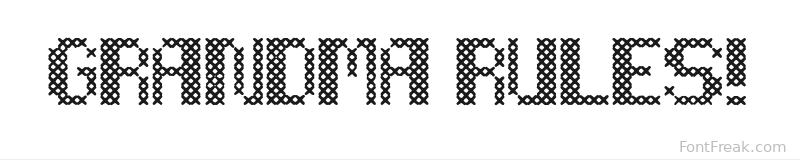
Grandma Rules!
Grandma Rules! is a playful display font designed by woodcutter Manero, categorized as a decorative typeface. This unique font features a distinctive visual style characterized by its intricate and whimsical design. The strokes are consistently medium in weight, creating a balanced yet engaging appearance. The spacing between the letters is well-considered, allowing for clear readability while maintaining the font's artistic flair. Decorative elements add a charming touch, making each character feel inviting and friendly.
The Grandma Rules! font is particularly well-suited for various creative projects. It shines in wedding invitations, where its playful nature can evoke feelings of joy and celebration. Additionally, this font works wonderfully for children's book covers, allowing authors to capture the essence of fun and imagination. Restaurant menus can benefit from its quirky style, drawing attention and adding character to the dining experience. It also makes for eye-catching social media graphics, perfect for content creators looking to engage their audience with a touch of whimsy.
What sets the Grandma Rules! font apart is its delightful charm and versatility. It captures the essence of a warm, inviting atmosphere, making it an excellent choice for projects that aim to connect with audiences on a personal level. Whether you're looking to create something playful or simply want to add a touch of creativity, the Grandma Rules! font free download is an excellent addition to your design toolkit.